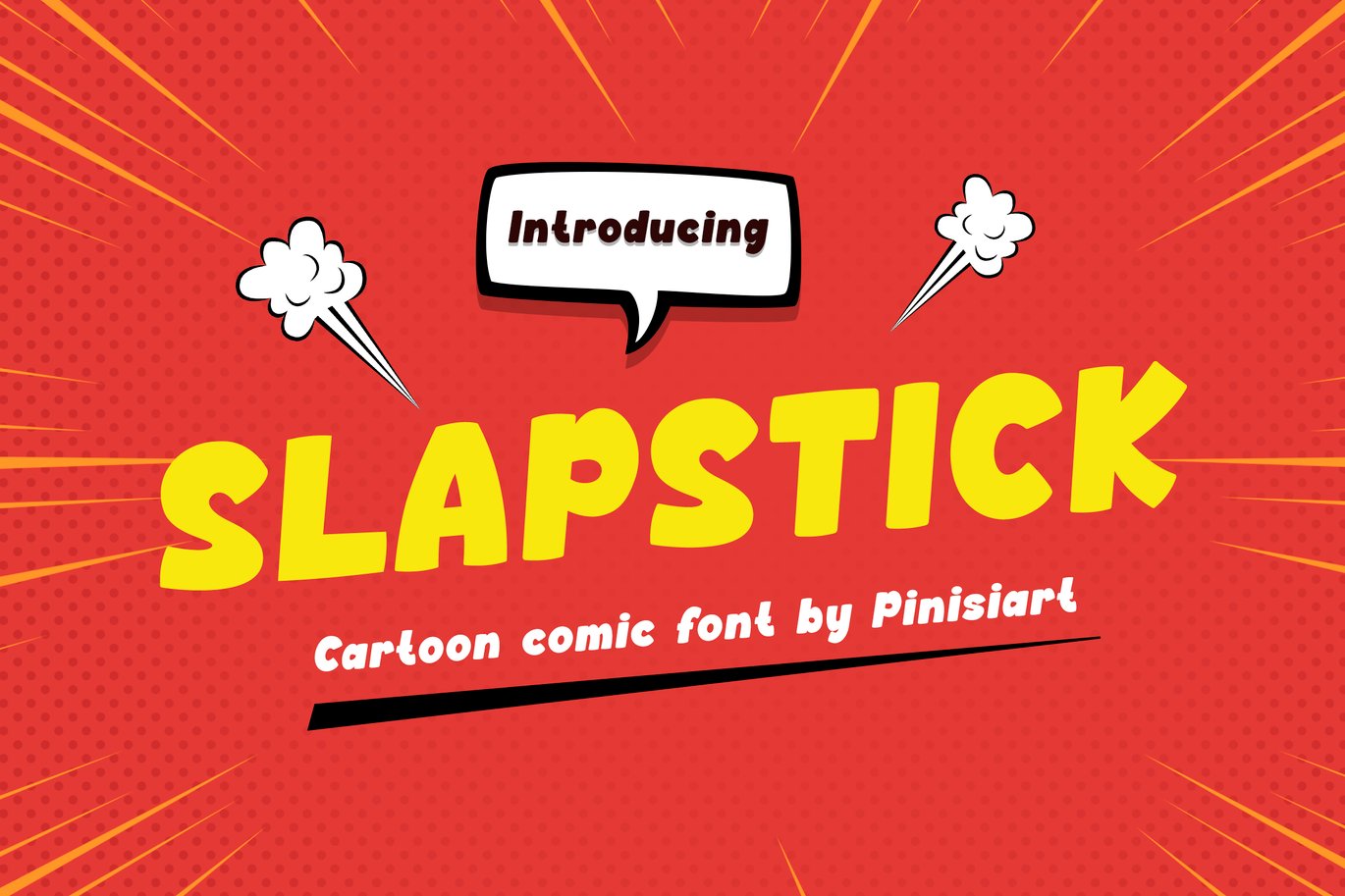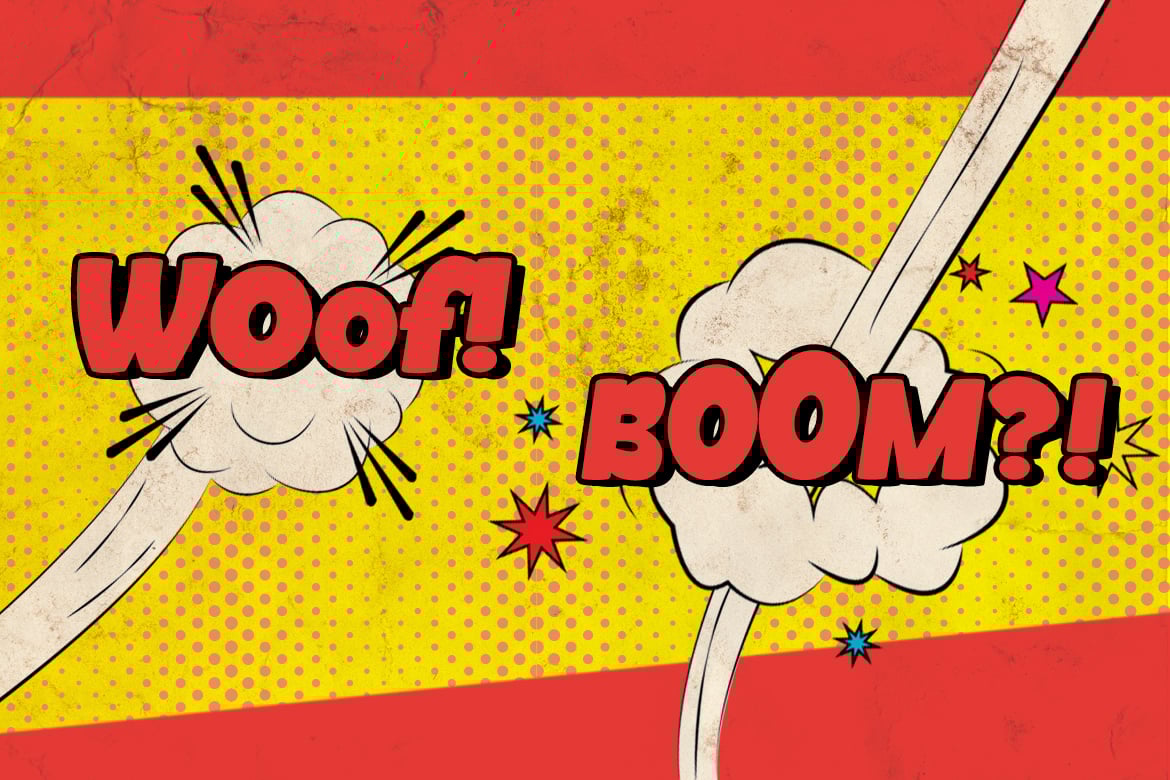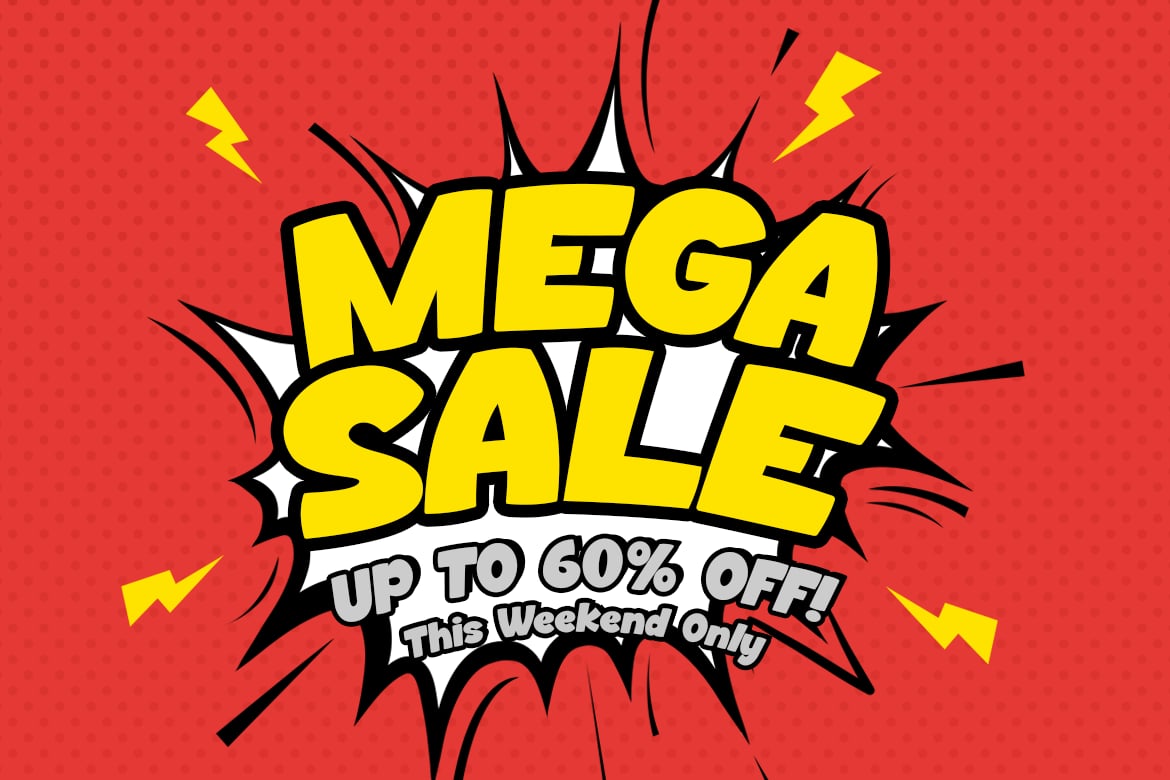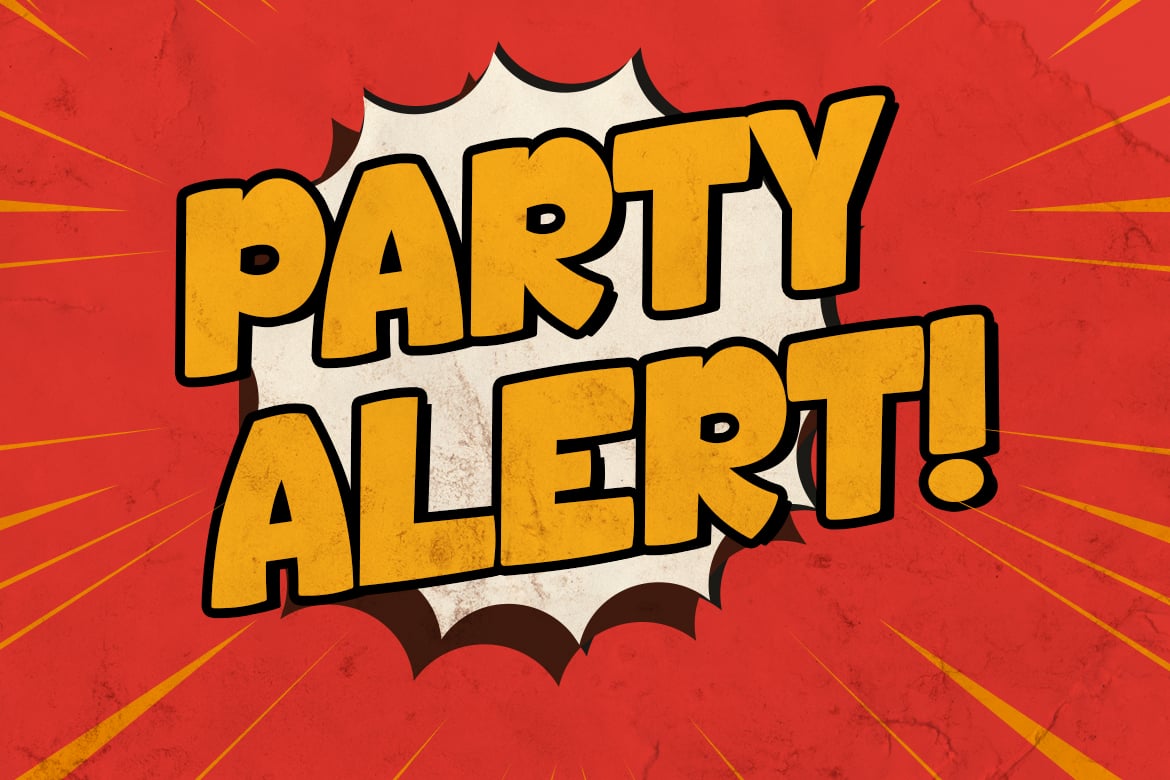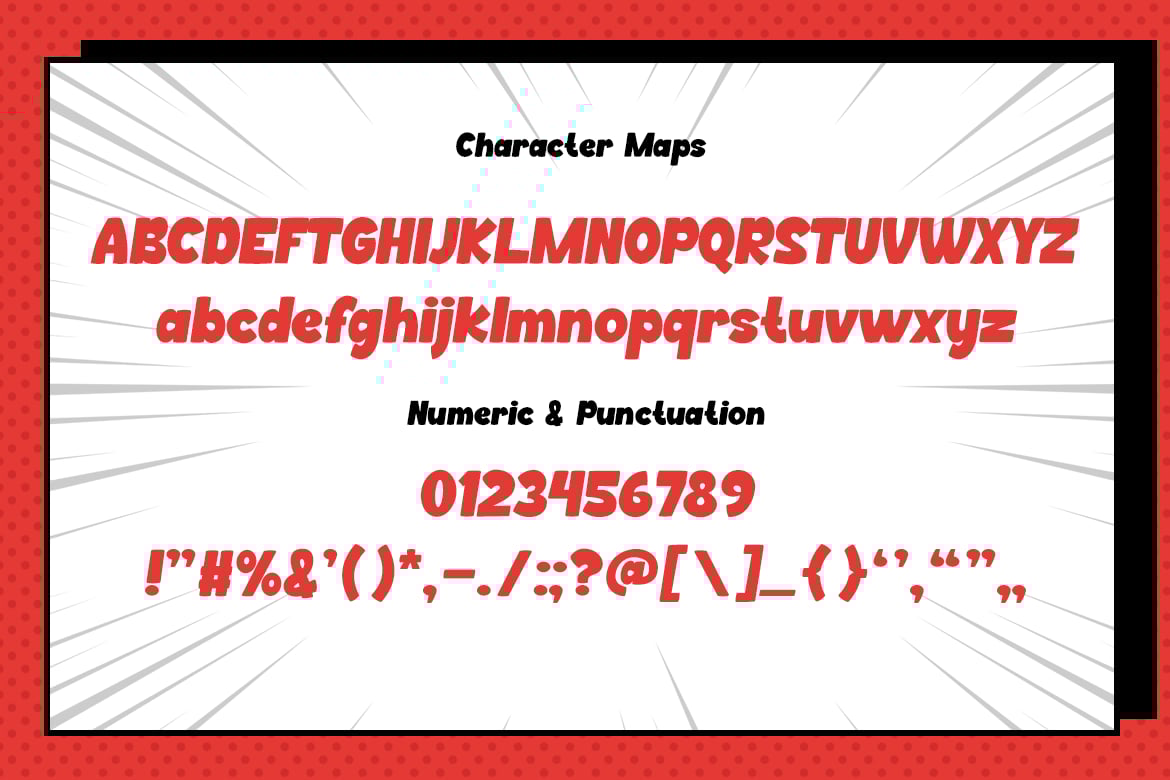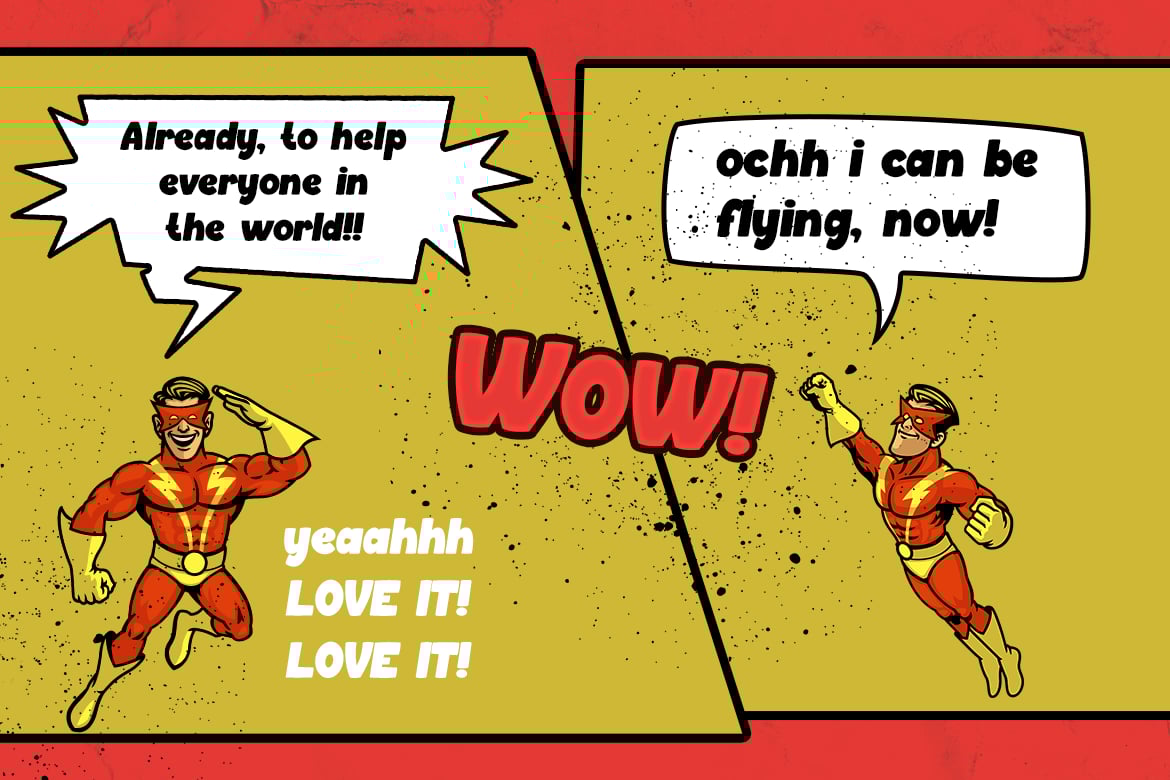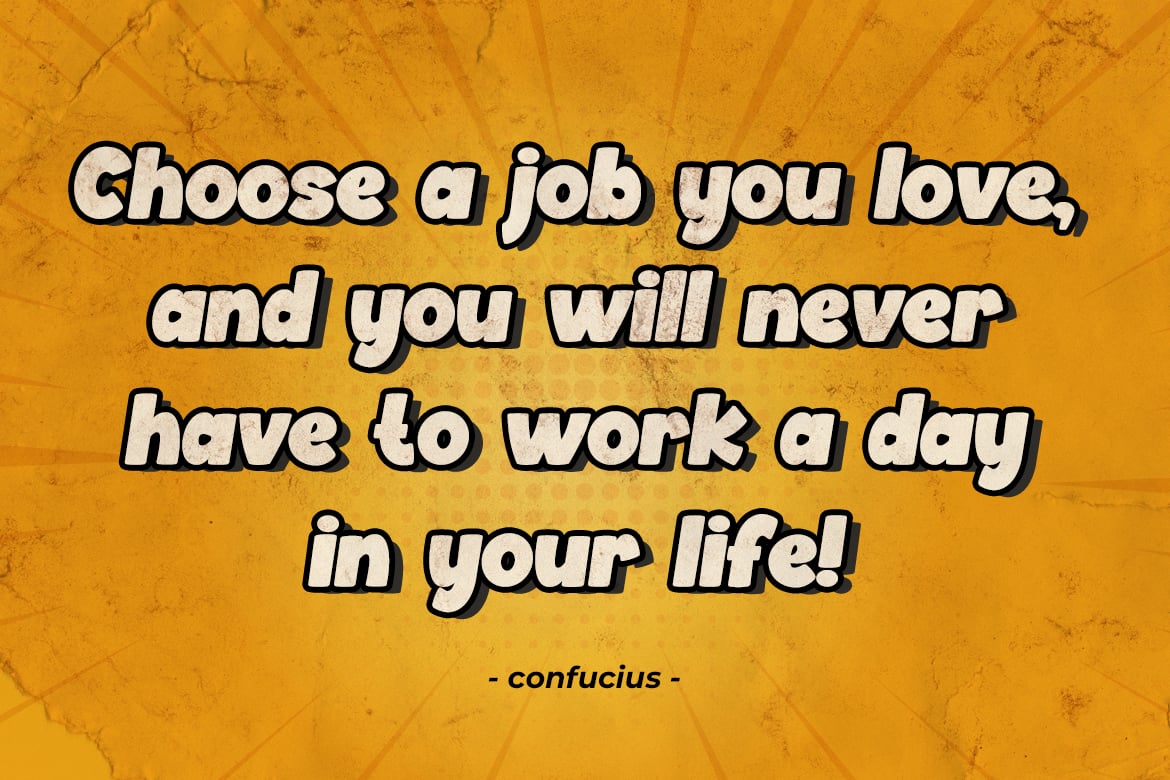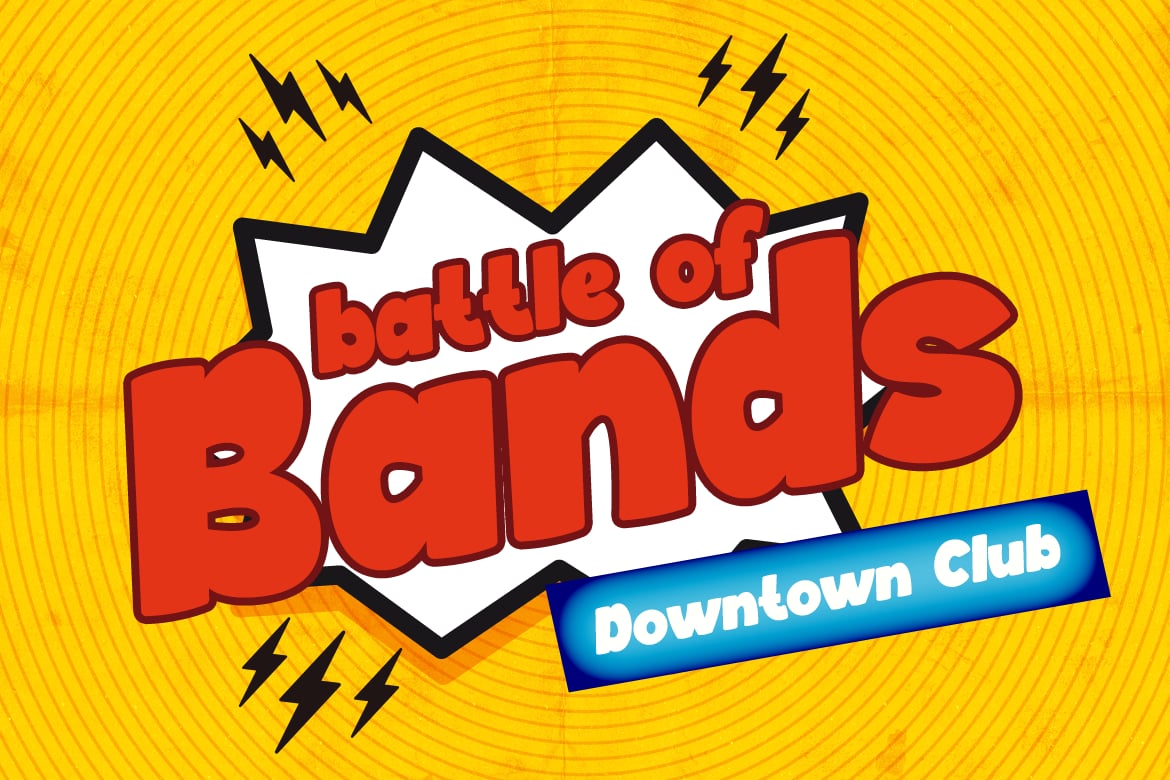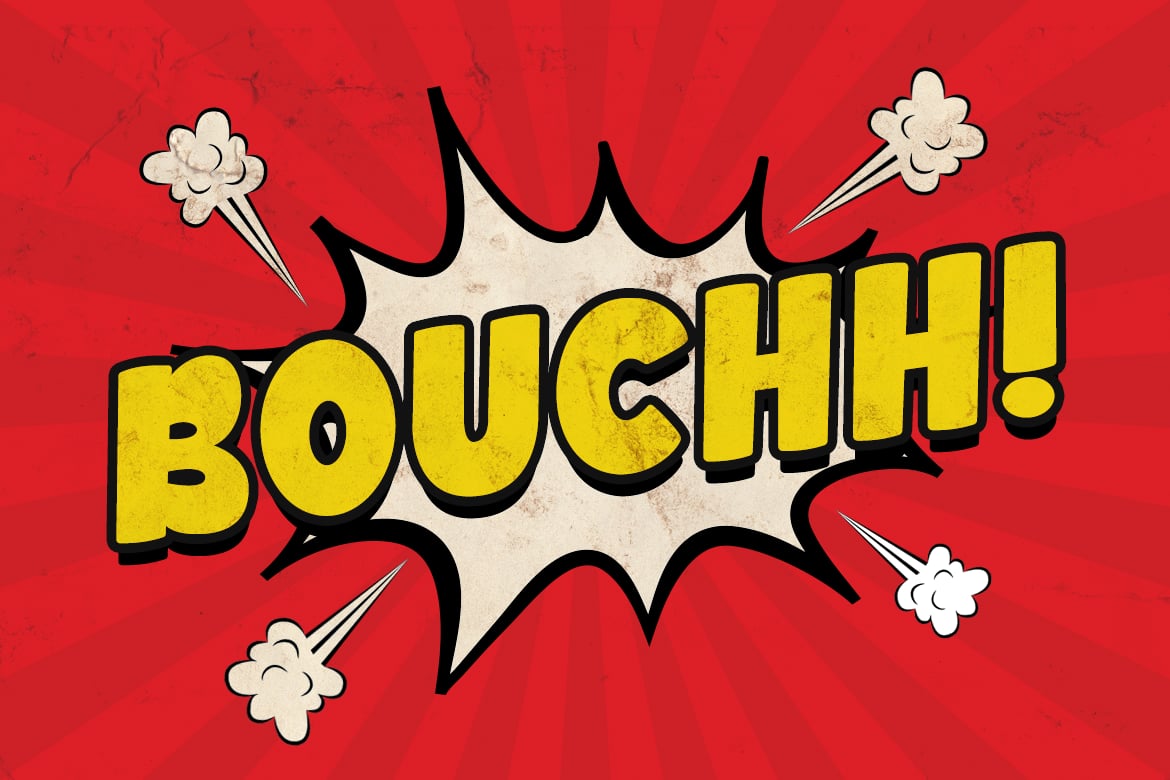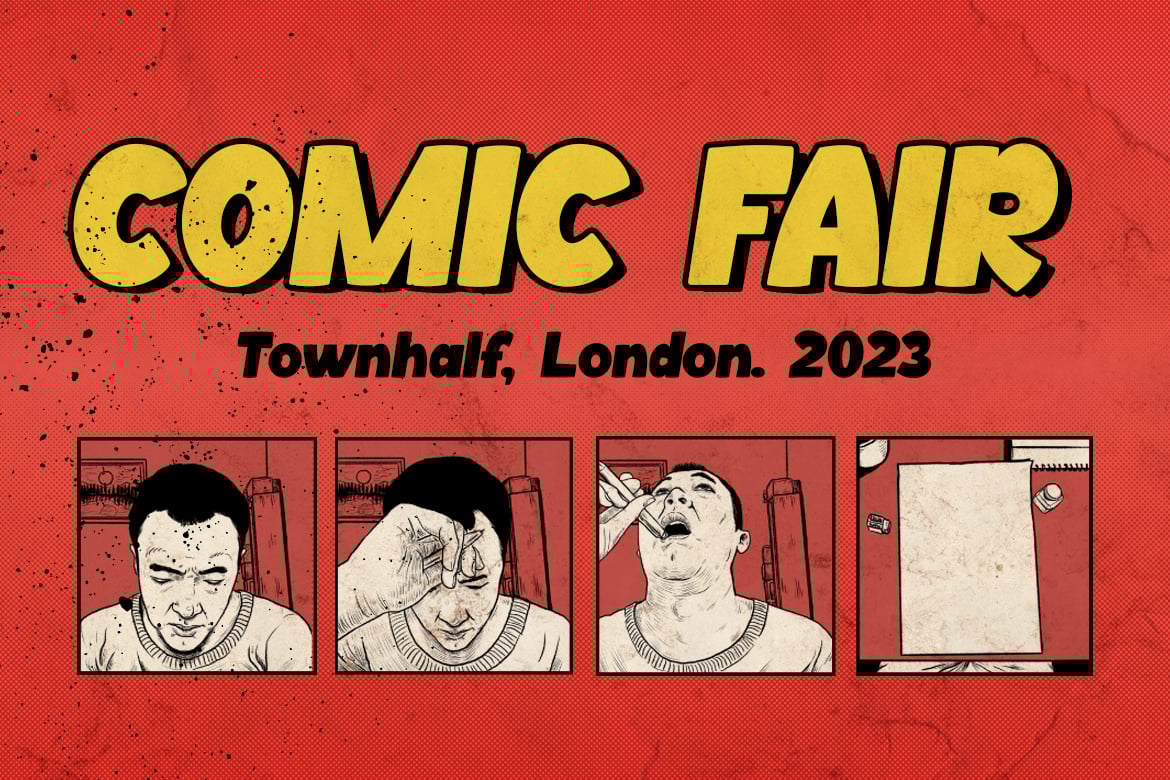
Slapstick – Cartoon Comic Font
Slapstick is a cartoon font that perfectly captures the whimsical and lively essence of comic styling, making it a favorite for projects aimed at kids and those young at heart. Its fun and friendly nature enhances logos with its playful charm, and it brings a joyful tone to quotes that brighten any message. Slapstick is also ideal for crafting lively invitations, eye-catching posters, and warm greetings that convey happiness and fun. Its versatile and appealing design makes it suitable for packaging and branding that aims to stand out with a youthful vibe. Additionally, Slapstick works wonderfully on book covers, in event promotions, headlines, and advertising, offering a consistently engaging and appealing visual presence that attracts attention and delivers smiles.